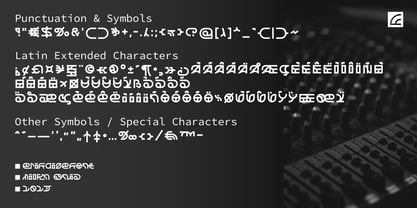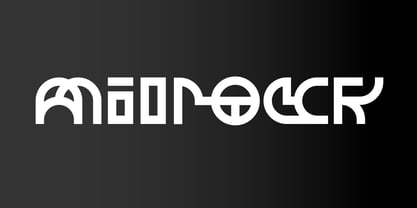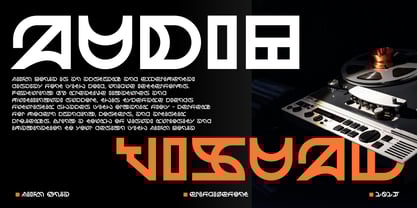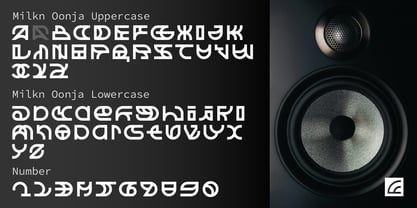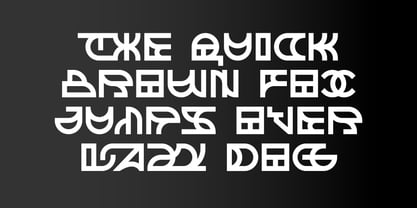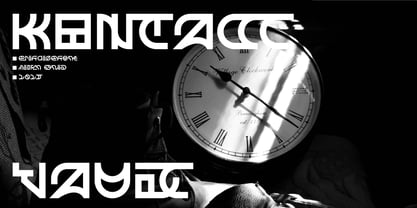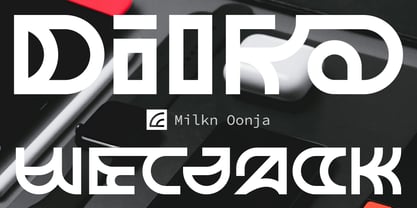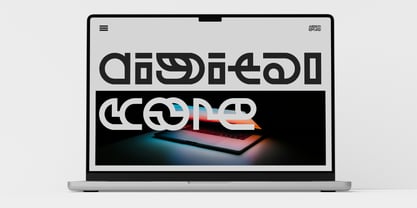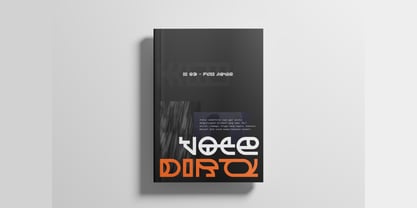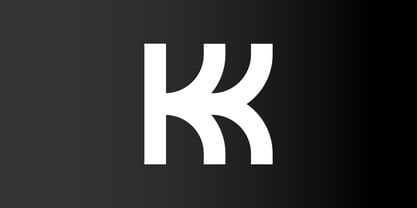
Milkn Oonja
by Erifqizefont
The Milkn Oonja Font Family was designed by Eka Rifqi Setiawan and published by Erifqizefont. Milkn Oonja contains 1 styles.
Milkn Oonja is an abstract and experimental display font that celebrates creativity through irregular shapes and artistic balance. Its design explores the boundary between geometric structure and organic flow, resulting in a typeface that feels both futuristic and human. Each letterform in Milkn Oonja carries a unique personality — bold, expressive, and slightly unpredictable. The font includes 67 creative ligatures that allow fluid, dynamic connections between characters, bringing a handcrafted yet modern rhythm to your typography. With multilingual support and a wide range of OpenType features, Milkn Oonja is ideal for designers who seek something distinctive and unconventional. It’s perfect for branding, posters, album art, editorial layouts, and experimental visuals that need to stand out with confidence and creativity. Step into the abstract world of Milkn Oonja — where imagination takes shape in every letter.
Introducing Erifqizefont, a Foundry led by Eka Rifqi Setiawan. Originating from Eka's experience as an Icon Designer, Erifqizefont specializes in bold, symmetrical Display Fonts with futuristic elements, occasionally exploring retro and whimsical styles. Based in Indonesia, Erifqizefont integrates the nation's cultural heritage into its designs. As a sole proprietor, Eka focuses on crafting superior, unique fonts, setting Erifqizefont apart in the industry.